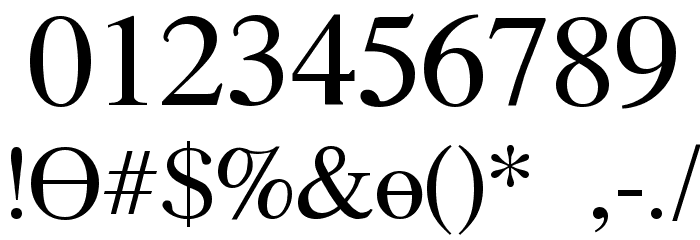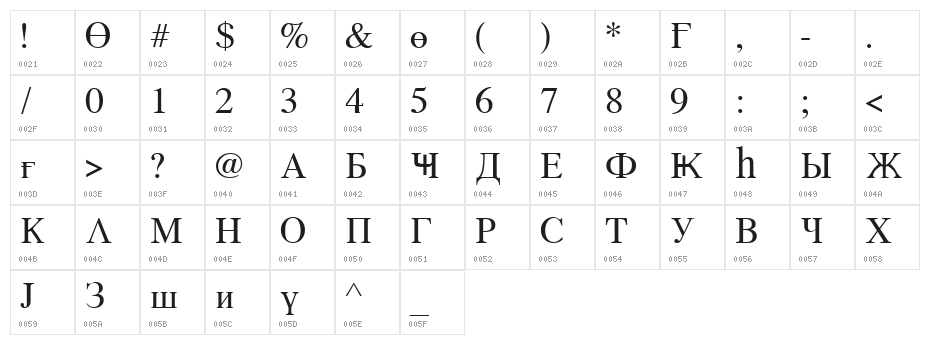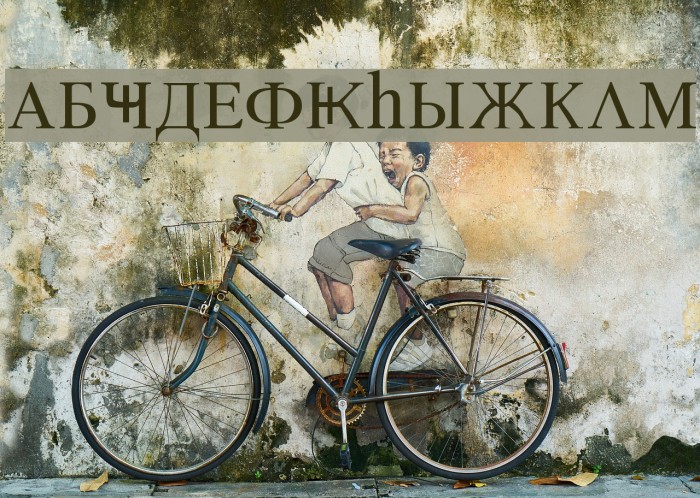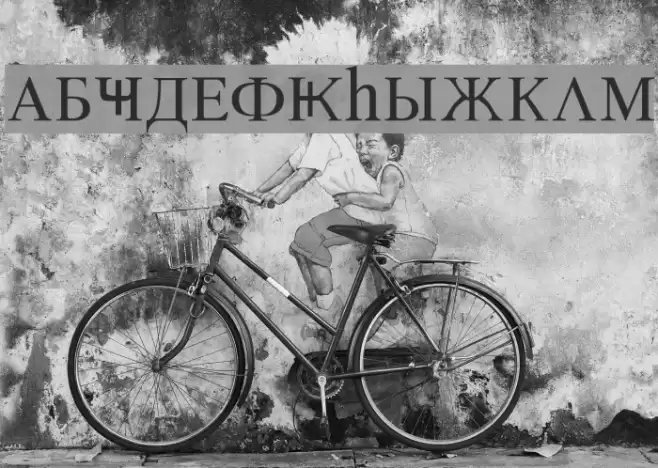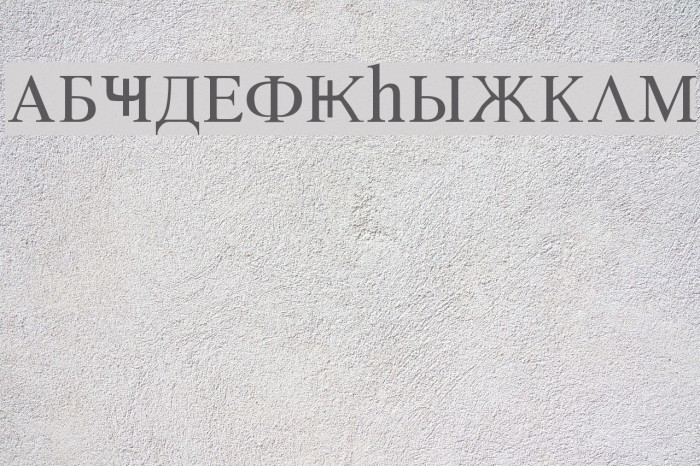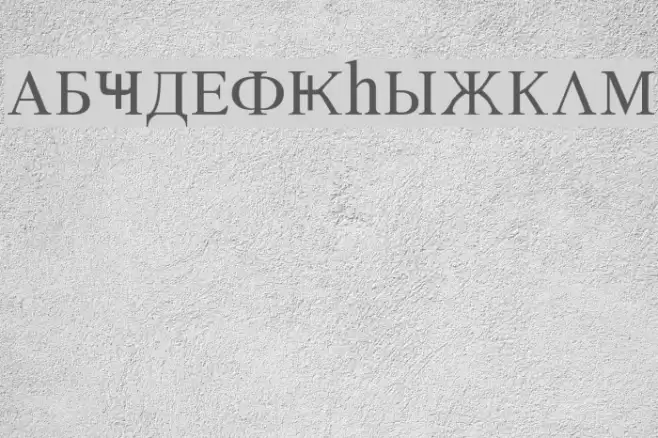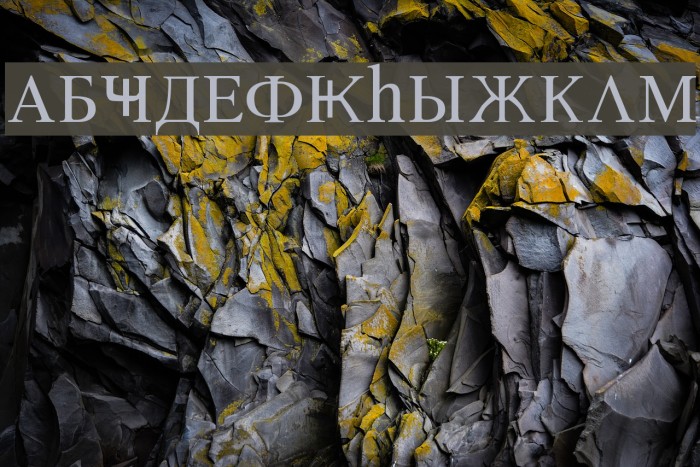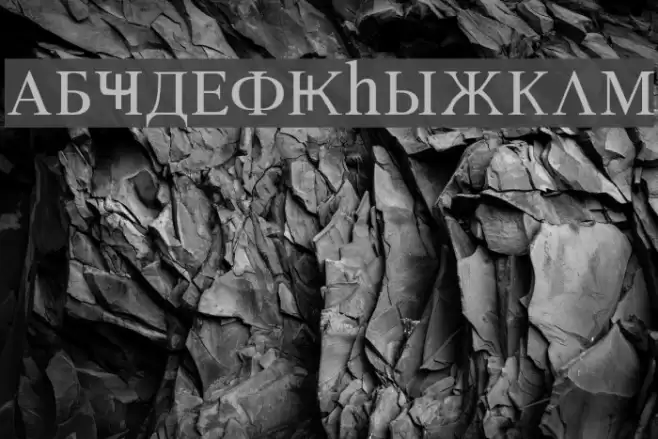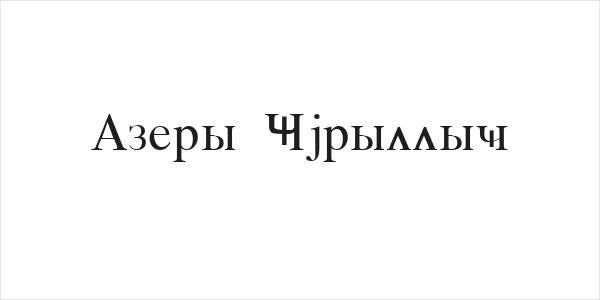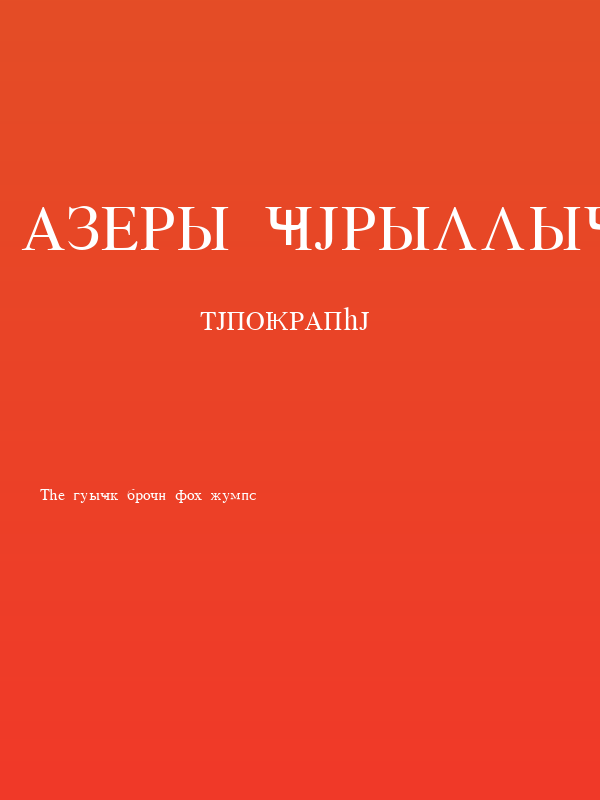
Azeri Cyrillic Font
Azeri Cyrillic Description
This font features a classic serif style with distinct, sharp serifs and a balanced structure. The uppercase letters are bold and commanding, while the lowercase letters maintain a consistent flow with a slight contrast in stroke thickness. The numerals are clear and legible, designed to complement the overall aesthetic. Special characters are well-integrated, maintaining the font's cohesive appearance. The font's design is both traditional and versatile, suitable for a variety of applications.